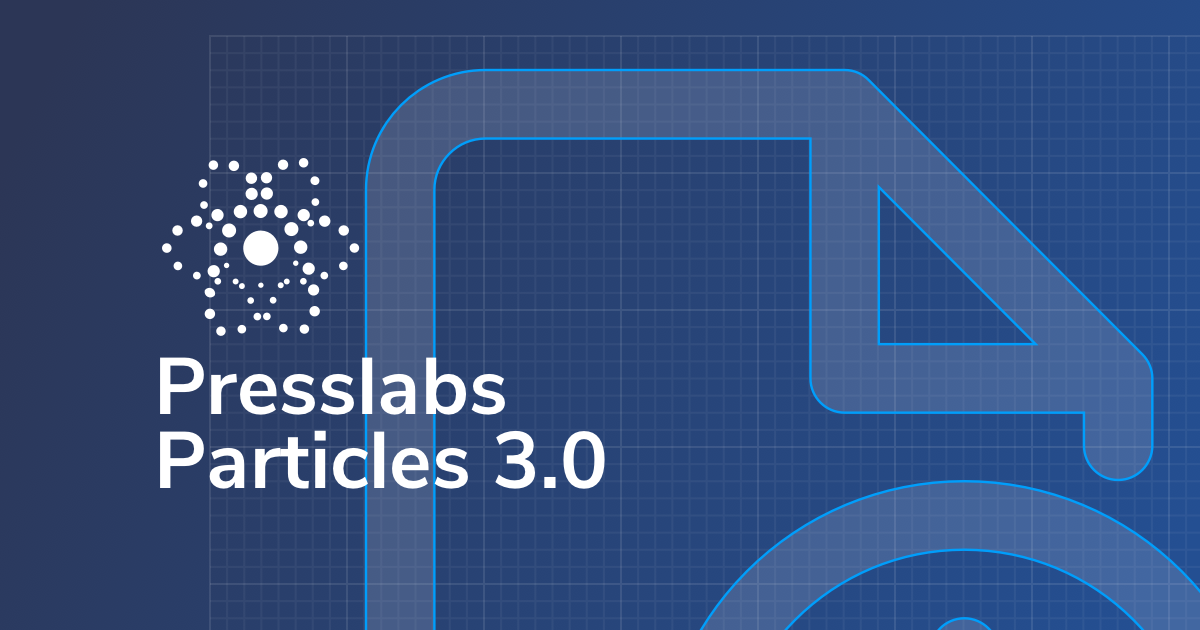
Presslabs Particles Font 3.0
A Friendly, Open-Source & Customizable Web Font
Presslabs Particles is a collection of customizable flat icons. The predefined icons are comprised of two groups, brands, which are composed of shapes, and icons, made of lines. Our Particles provide a breakthrough in how webfont are handled on webpages, as they are SEO-friendly, easy to setup and highly customizable.